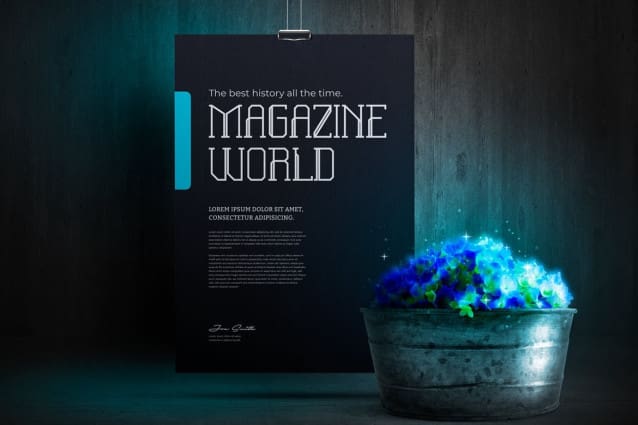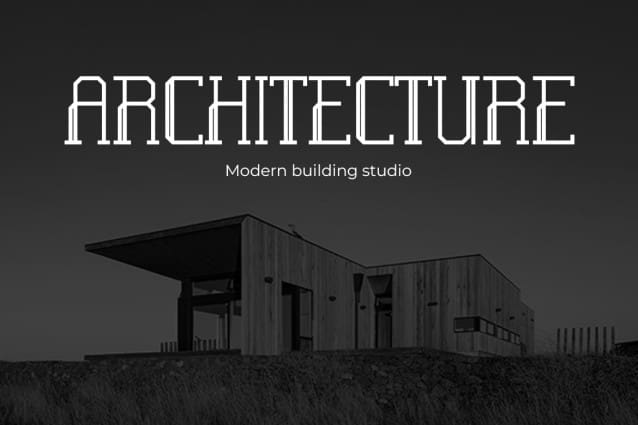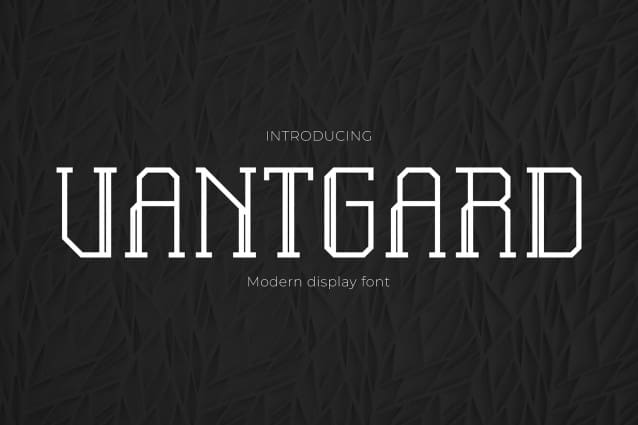
Vantgard Font
Vantgard Font is the epitome of modern sophistication, where avant-garde aesthetics dominate design excellence. Designed for branding, packaging, logos, movie posters, banners and posters, Vantgard introduces a new standard of elegance to your projects. Each letter demonstrates contemporary design, combining minimalist finesse and refined futurism. Whether creating a brand identity, enhancing packaging, or creating captivating posters, Vantgard transforms your designs into timeless works of visual art. Immerse yourself in the avant-garde look of Vantgard, where every curve and line reflects a commitment to modern style. Stand out from the crowd and redefine elegance with Vantgard Font, a font that raises the bar for sophisticated, contemporary aesthetics